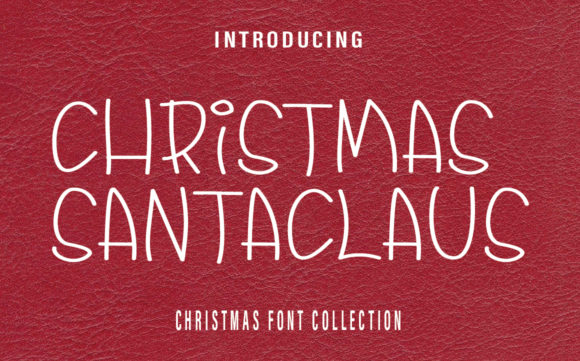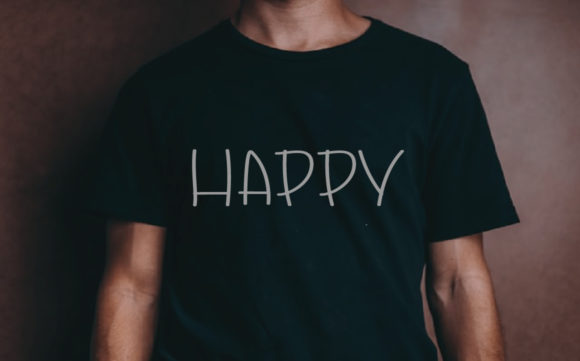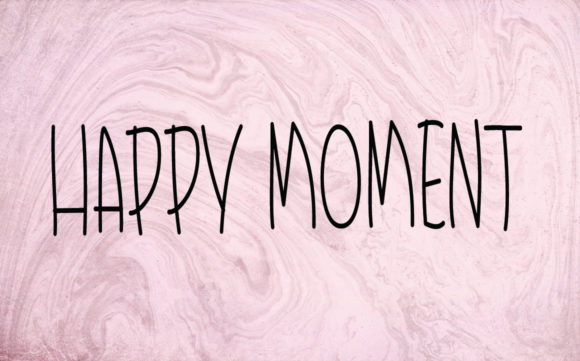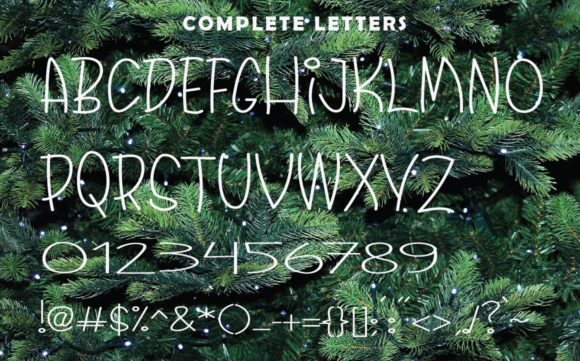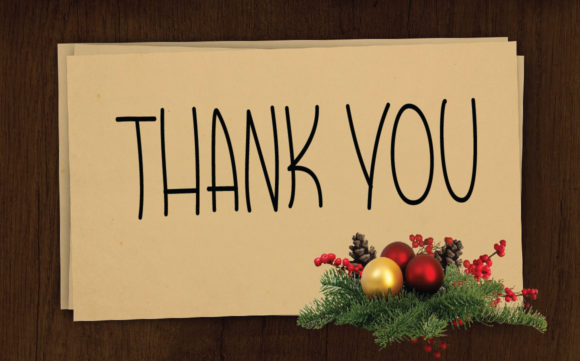
Christmas Santaclaus Font
About Christmas Santaclaus Font
Christmas Santaclaus is an uppercase handwritten font with simplified lines that makes this font both gentle and gorgeous.